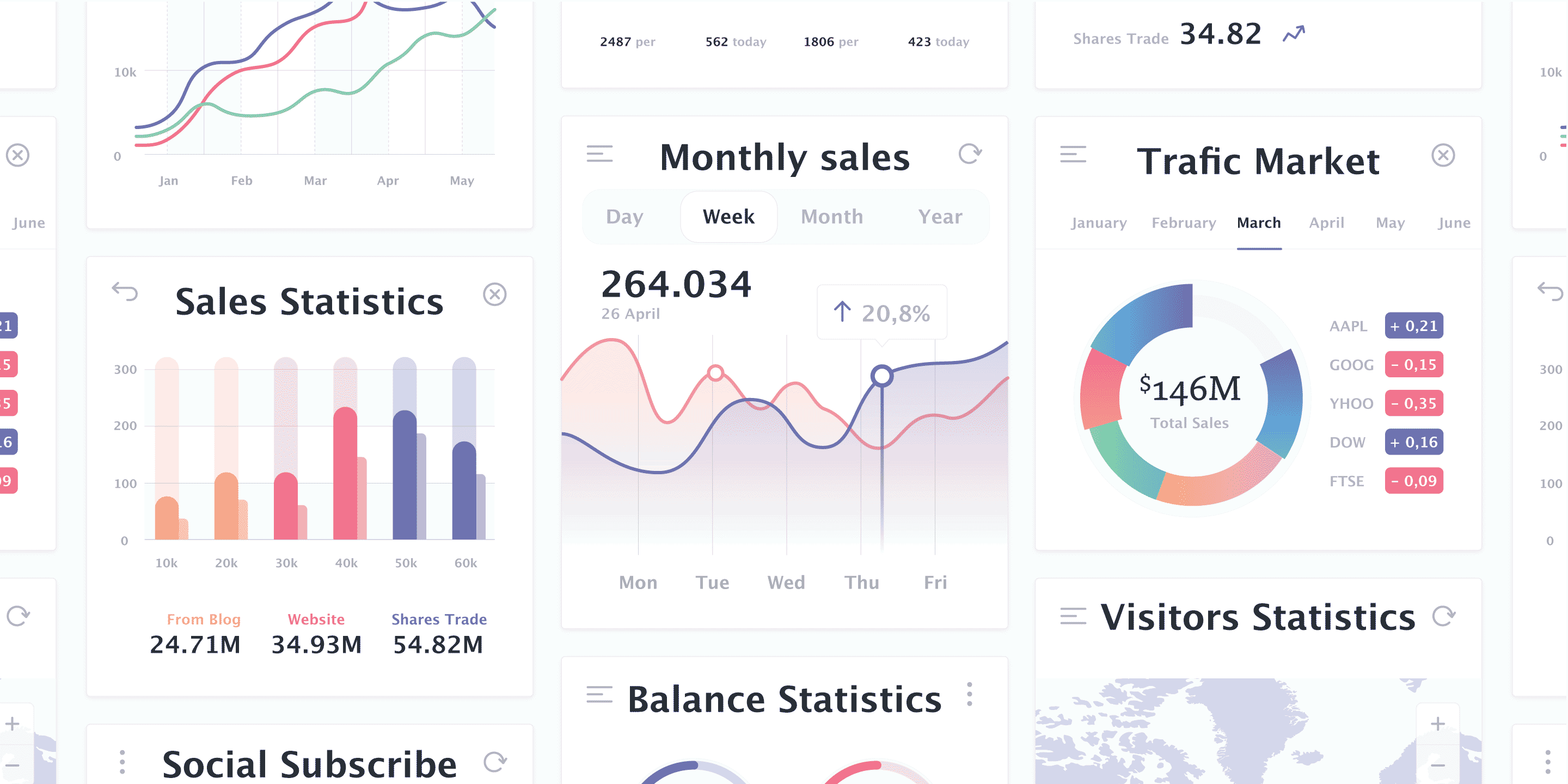
Lucida Grande Font is exceptionally suited for system interface applications including operating system designs, desktop application interfaces, software development documentation, technical user manuals, professional dashboard layouts, enterprise software solutions, digital workspace environments, productivity tool interfaces, and cross-platform application designs. Its systematic character makes it perfect for projects requiring technical clarity and consistent user experience across all computing platforms and professional software environments.
What makes Lucida Grande Font exciting is its remarkable optimization for digital legibility that ensures exceptional readability across all screen technologies and user interface contexts. This versatile typeface features scientifically engineered letterforms and precise character spacing that reduce eye strain during extended computer use. The font's neutral professionalism makes it ideal for technology companies and software developers seeking to provide users with comfortable, efficient, and universally accessible digital experiences.
Lucida Grande Font offers a well-structured family collection including Regular and Bold weights, along with corresponding Italic versions that maintain the core system optimization while providing essential typographic hierarchy for complex interface designs. Each family member preserves the technical precision and cross-platform compatibility while offering different levels of visual emphasis to accommodate diverse software requirements and professional application systems.
Software designers and user interface professionals will find Lucida Grande Font Free Download to be an indispensable tool for creating reliable digital communications. This typeface excels in both small interface text and larger system elements, demonstrating remarkable consistency across different operating systems and device configurations. Whether developing desktop applications, creating system documentation, or designing professional software interfaces, this font consistently delivers results that enhance productivity and user satisfaction.
The Lucida Grande Font demonstrates exceptional technical engineering in its character construction, featuring optimized metrics that ensure perfect rendering across various display technologies and resolution densities. Its comprehensive character set includes system symbols, programming notations, and extensive multilingual support that makes it suitable for international software development. The font's precise spacing and system-optimized kerning guarantee optimal performance across all computing platforms and professional environments.
Development teams particularly appreciate Lucida Grande Font for its ability to maintain consistent user experiences while providing excellent cross-platform compatibility. The typeface works exceptionally well for software companies, enterprise applications, system interfaces, development environments, and professional productivity tools. Its neutral reliability ensures broad user acceptance while its technical optimization guarantees stable performance across all digital systems and computing devices.
The systematic architecture of Lucida Grande Font makes it particularly valuable for creating unified digital ecosystems that prioritize user efficiency and interface consistency. Its dependable character creates familiar user experiences while maintaining excellent functionality across various system contexts, from detailed mobile applications to comprehensive desktop environments, ensuring consistent and professional digital communication that supports workflow optimization and reduces cognitive load for users worldwide.